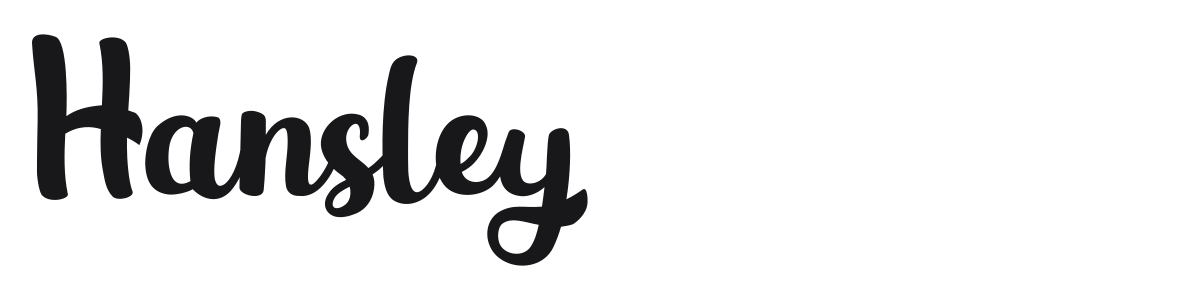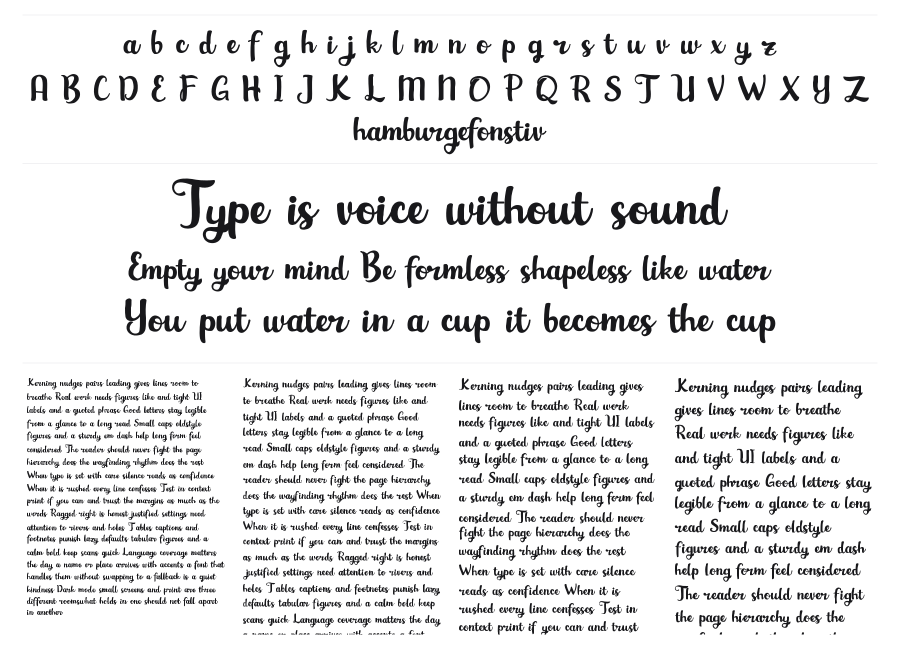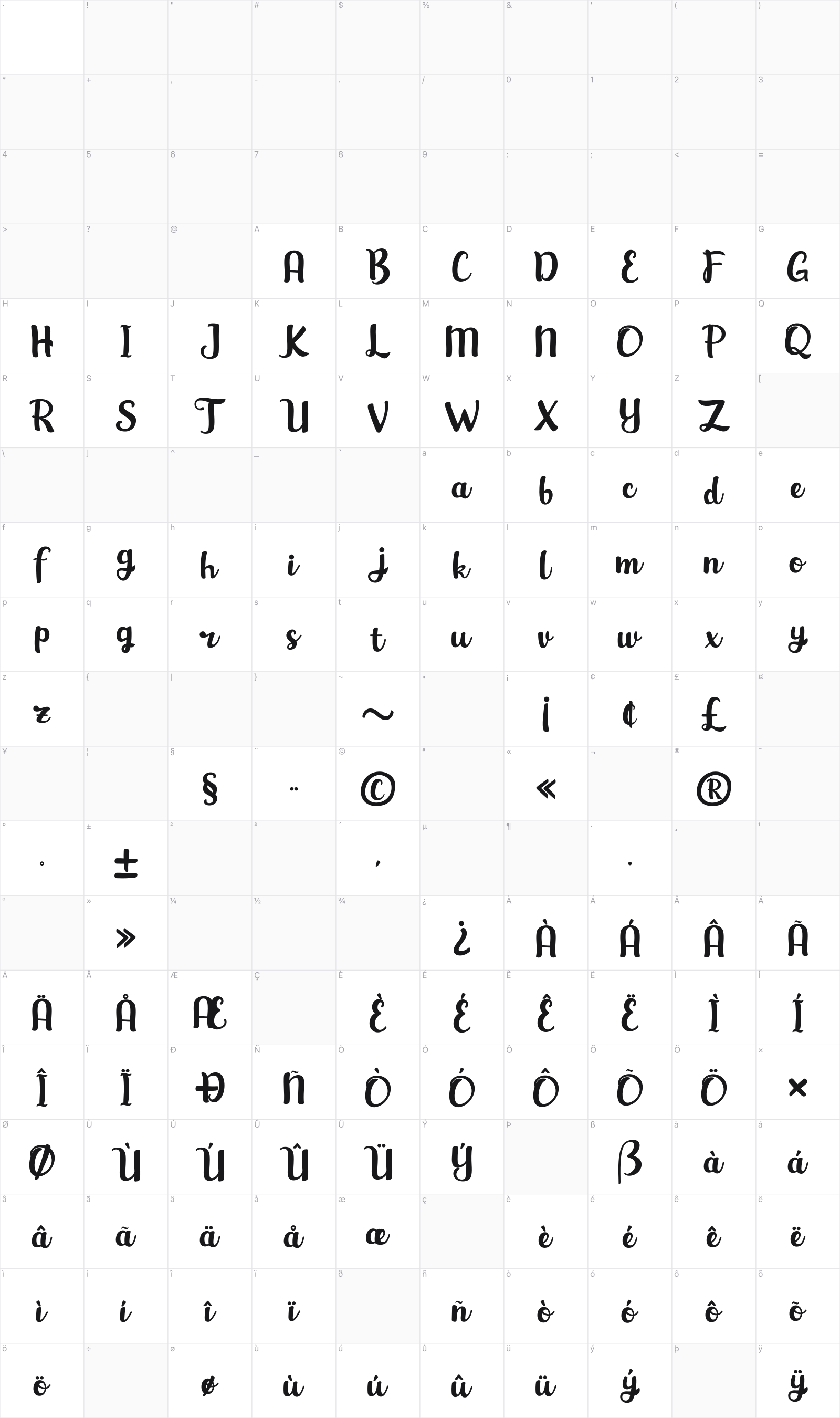
Hansley
Hansley is a bold casual script with the confident rhythm of a brush-lettered hand. Thick downstrokes taper into clean hairlines, and the fluid connected letters carry a natural, unhurried energy. It sits comfortably on packaging, logos, and any headline that needs a warm, personal touch.